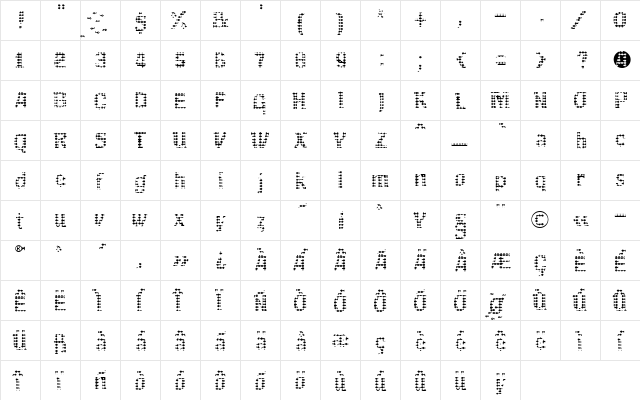
F2FMekkasoTomanik LT Std Regular
| Foundry | Linotype Library GmbH |
| Designer | Alessio Leonardi |
Design Context for F2FMekkasoTomanik LT Std Typeface
F2FMekkasoTomanik LT Std is a composed and adaptable typeface that performs quietly and consistently across a wide range of design contexts. Its slender proportions lend an understated elegance to any composition.